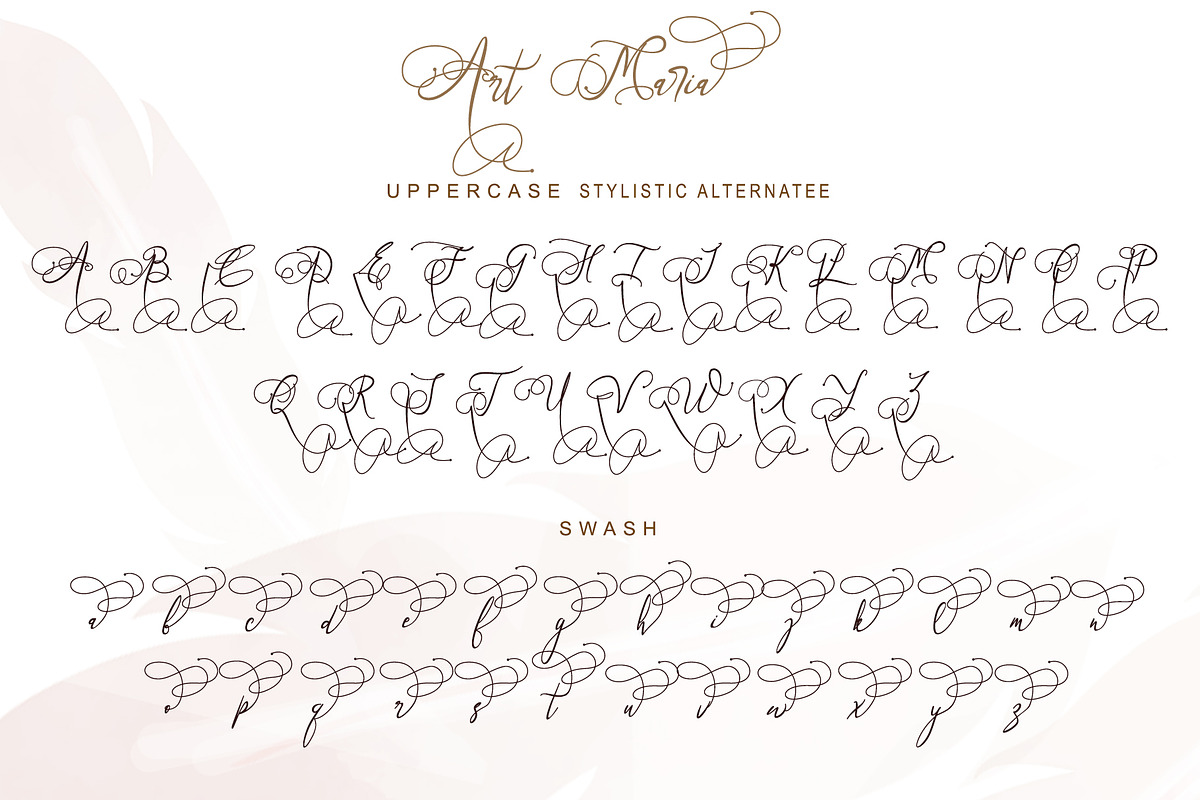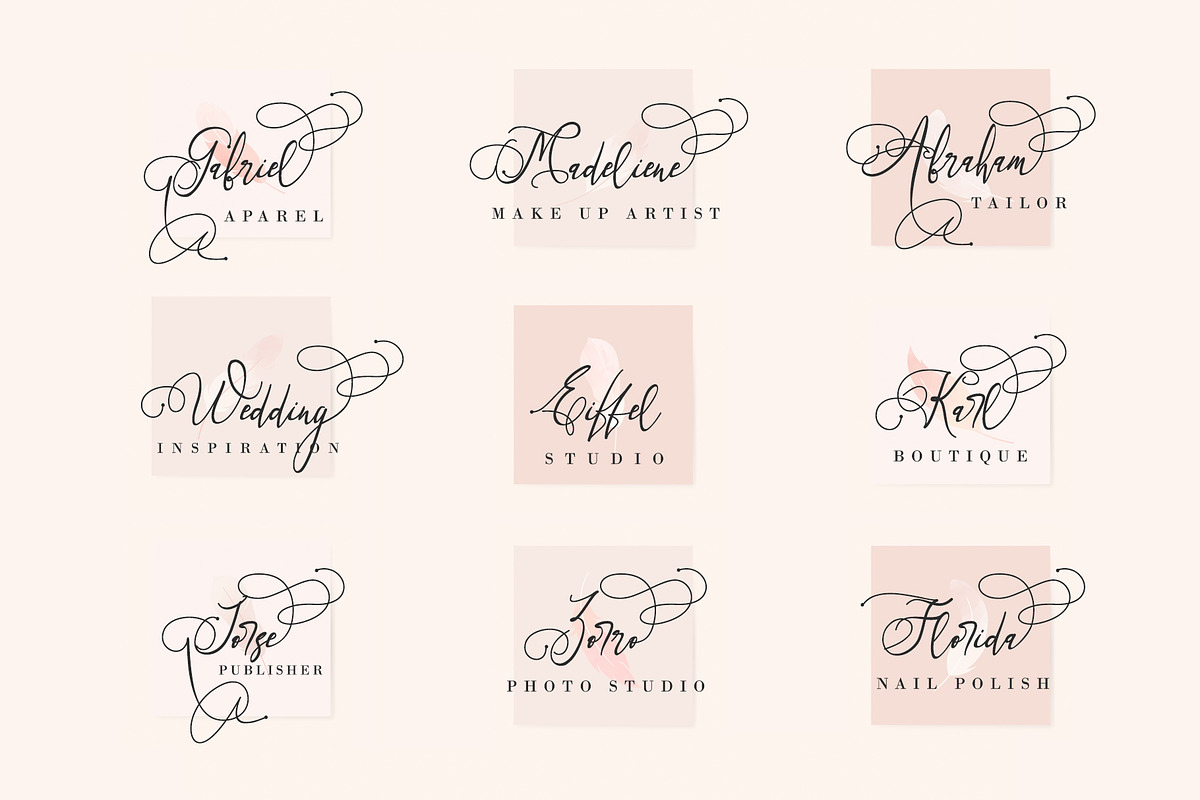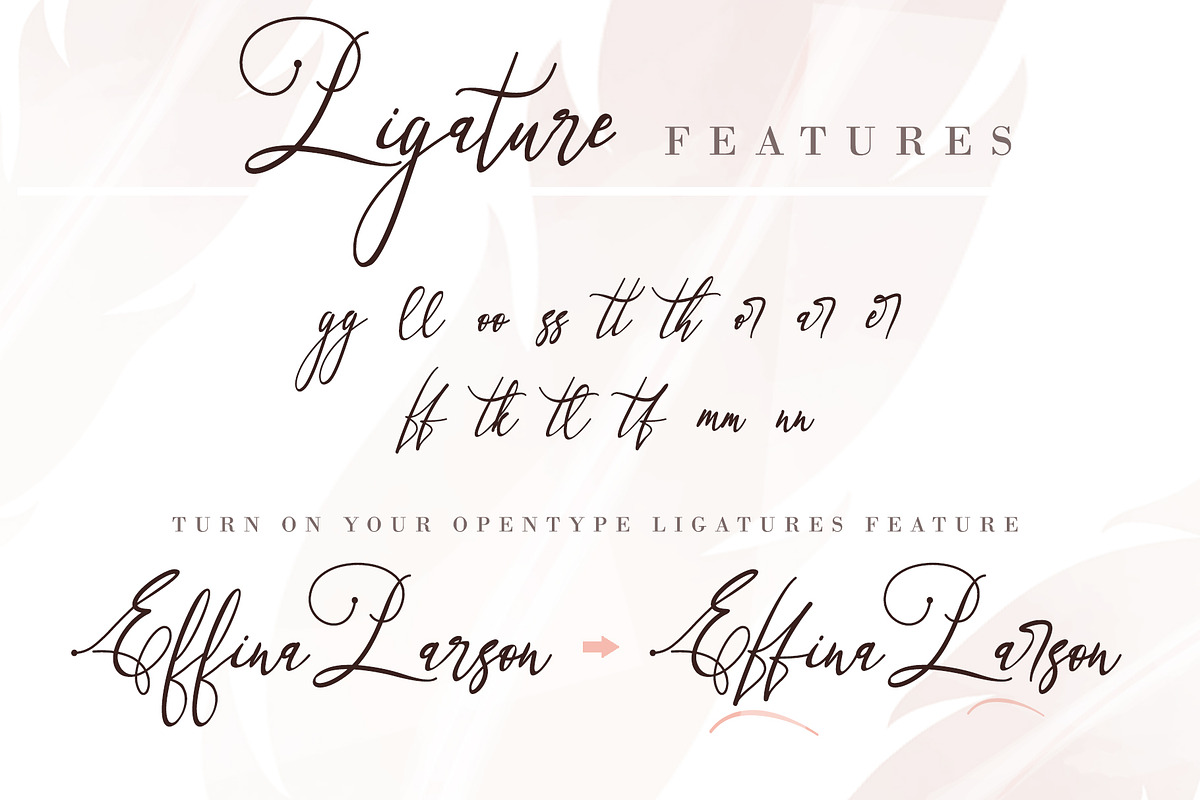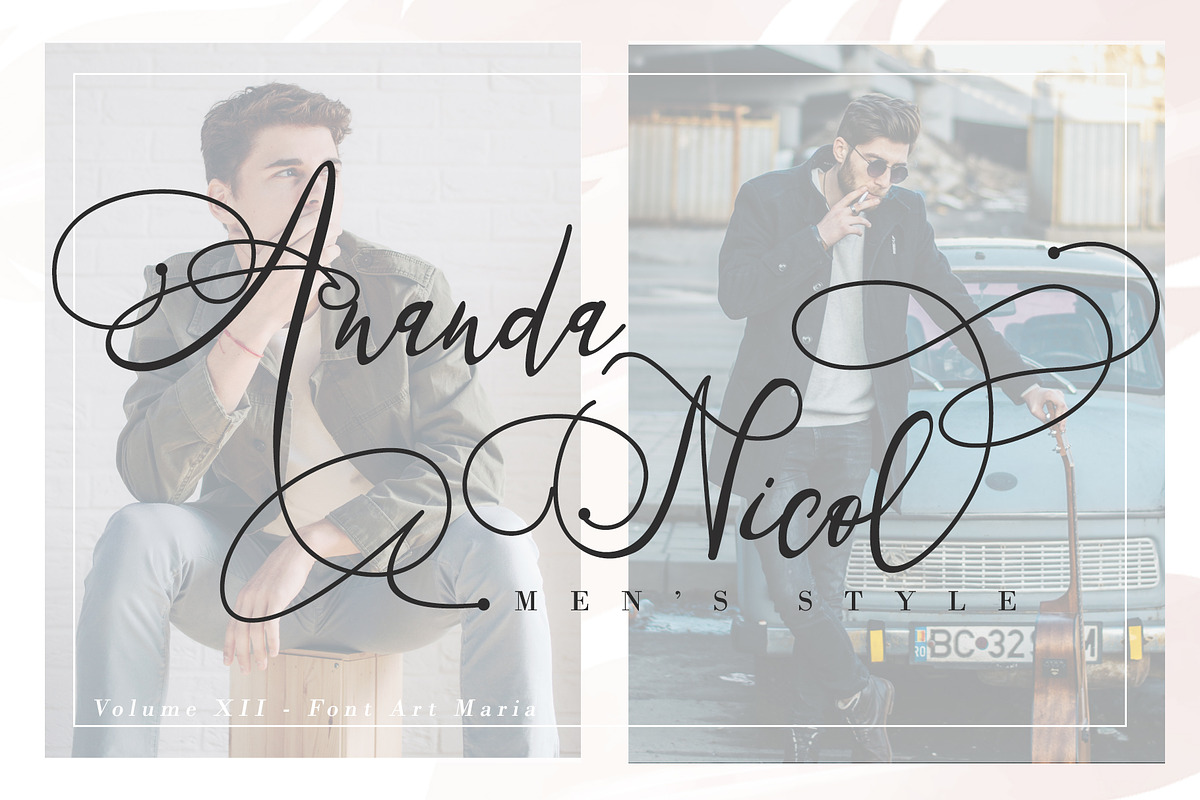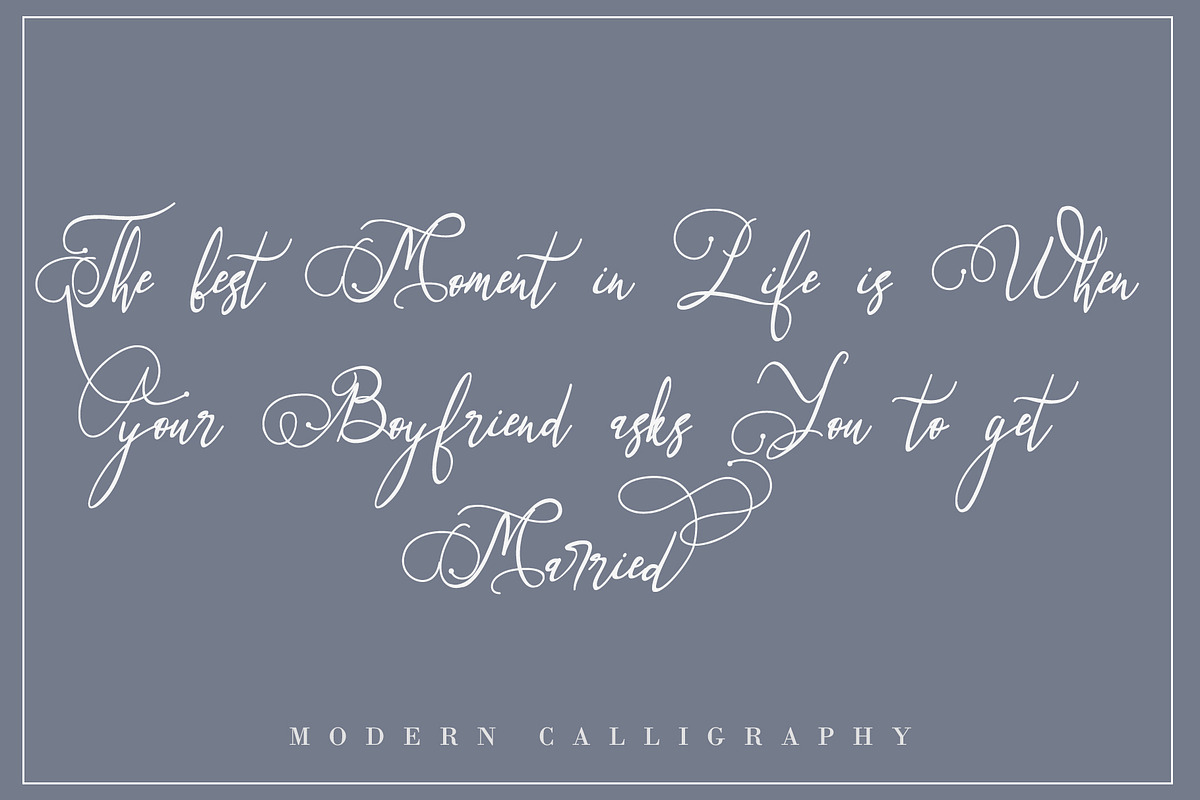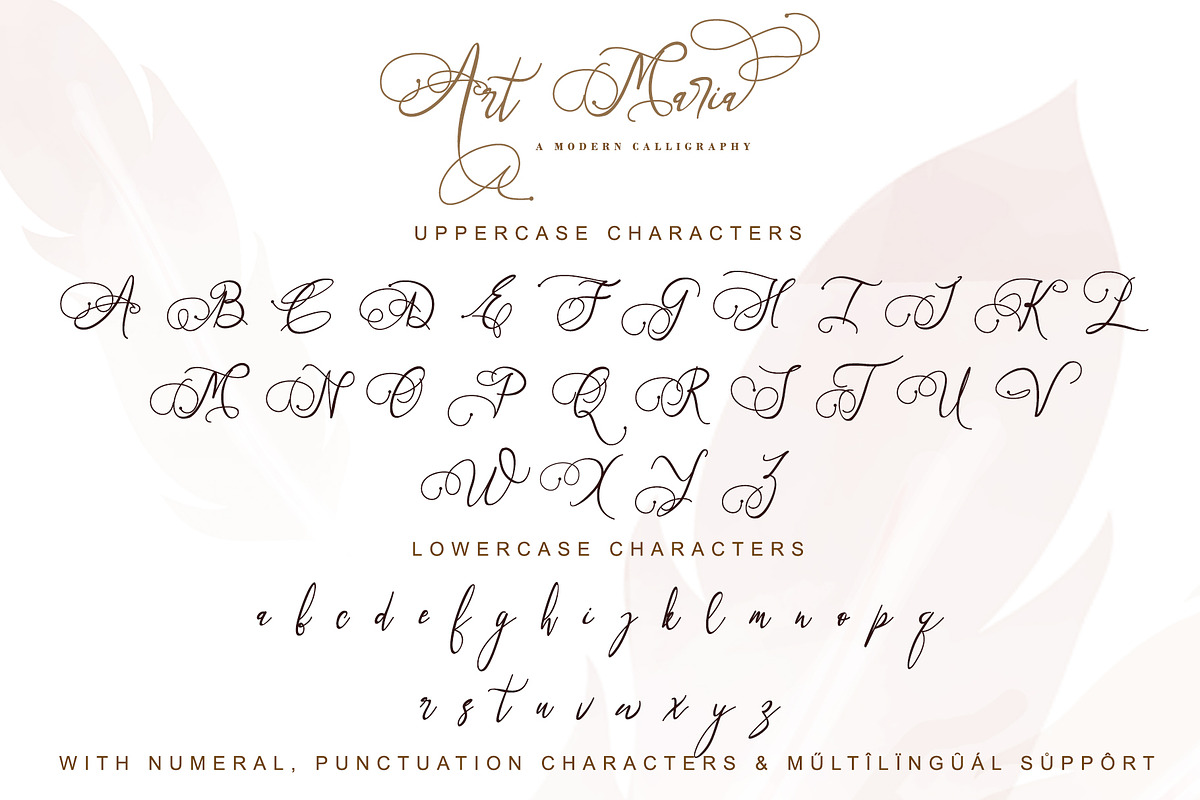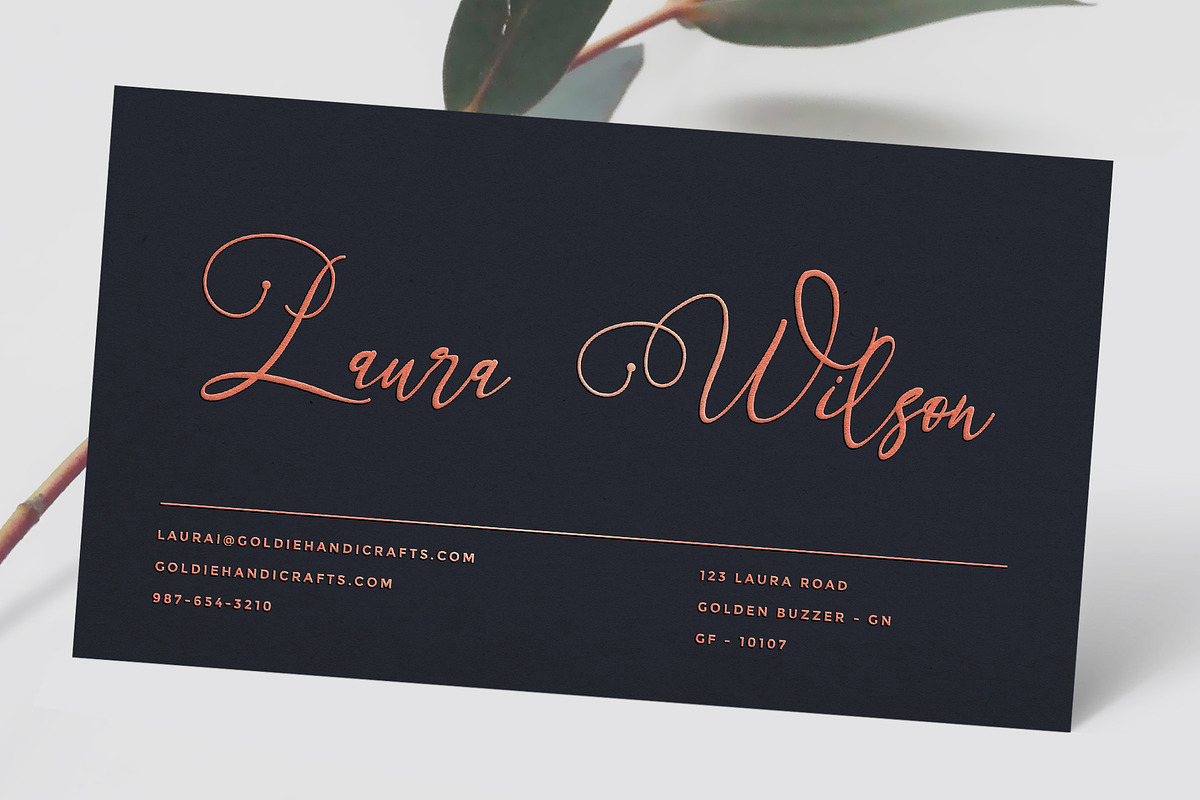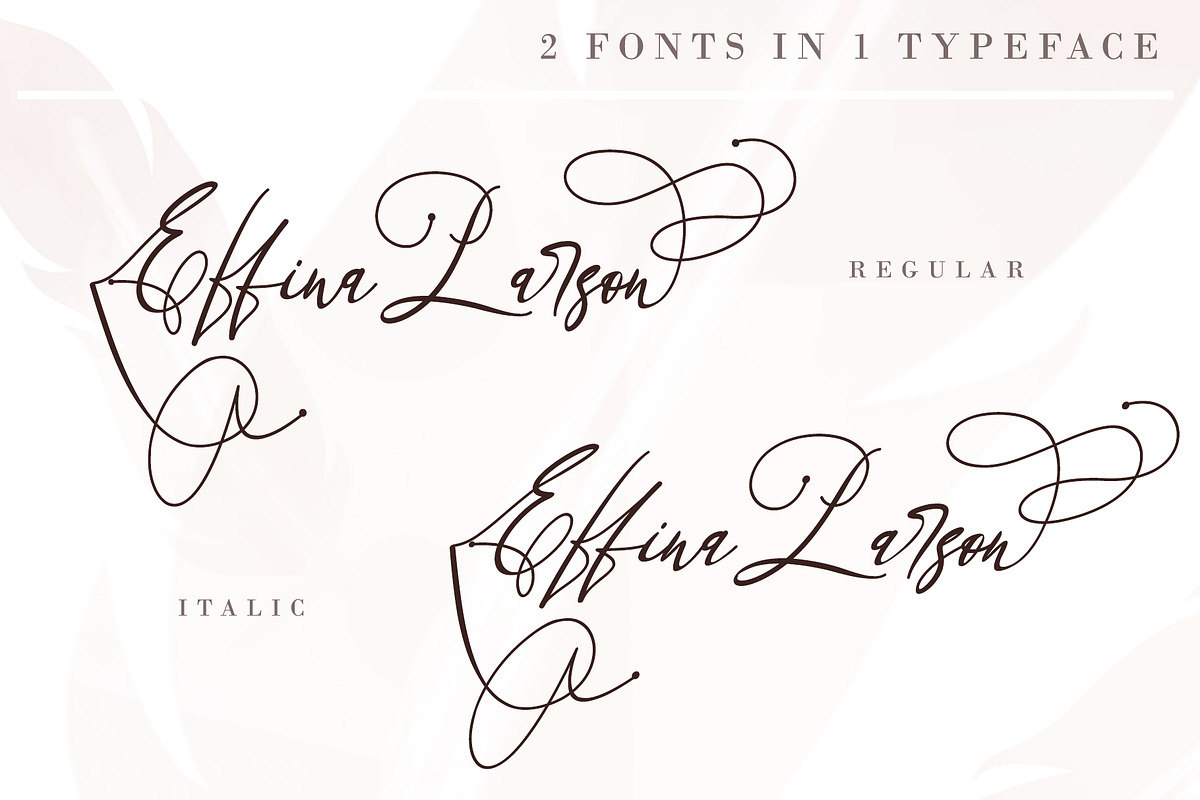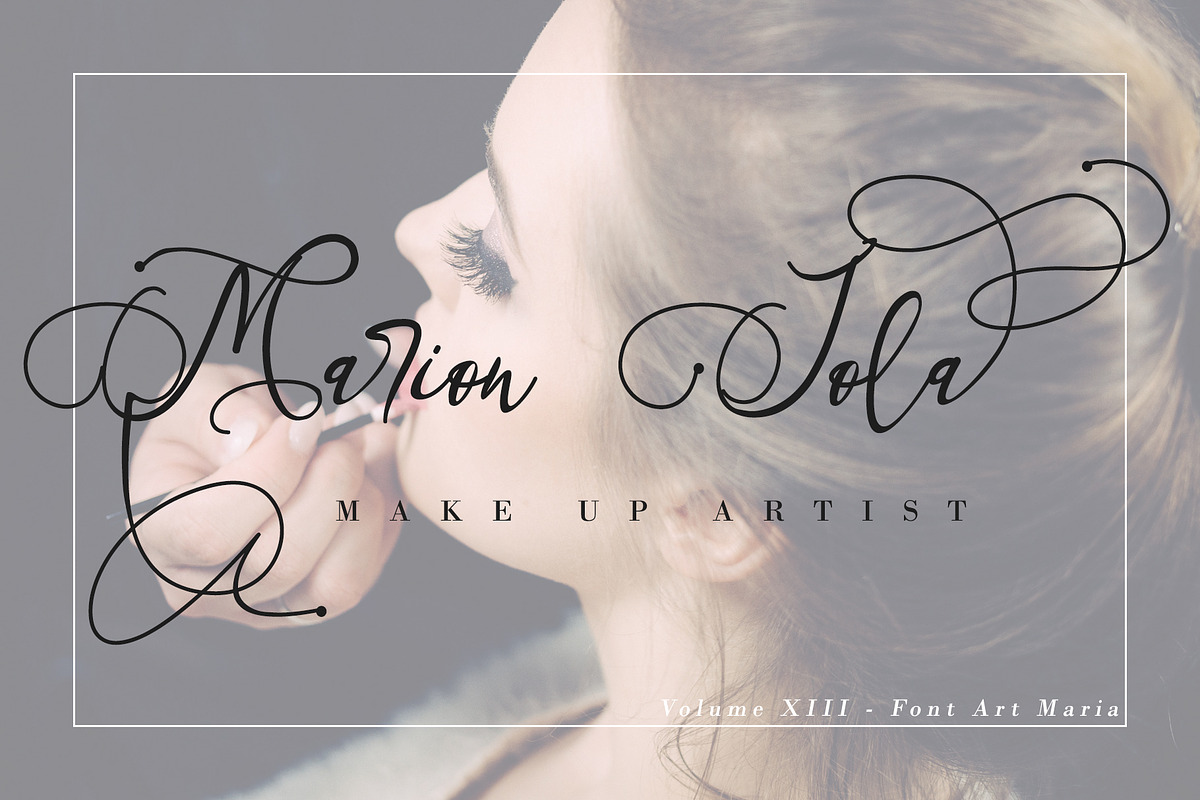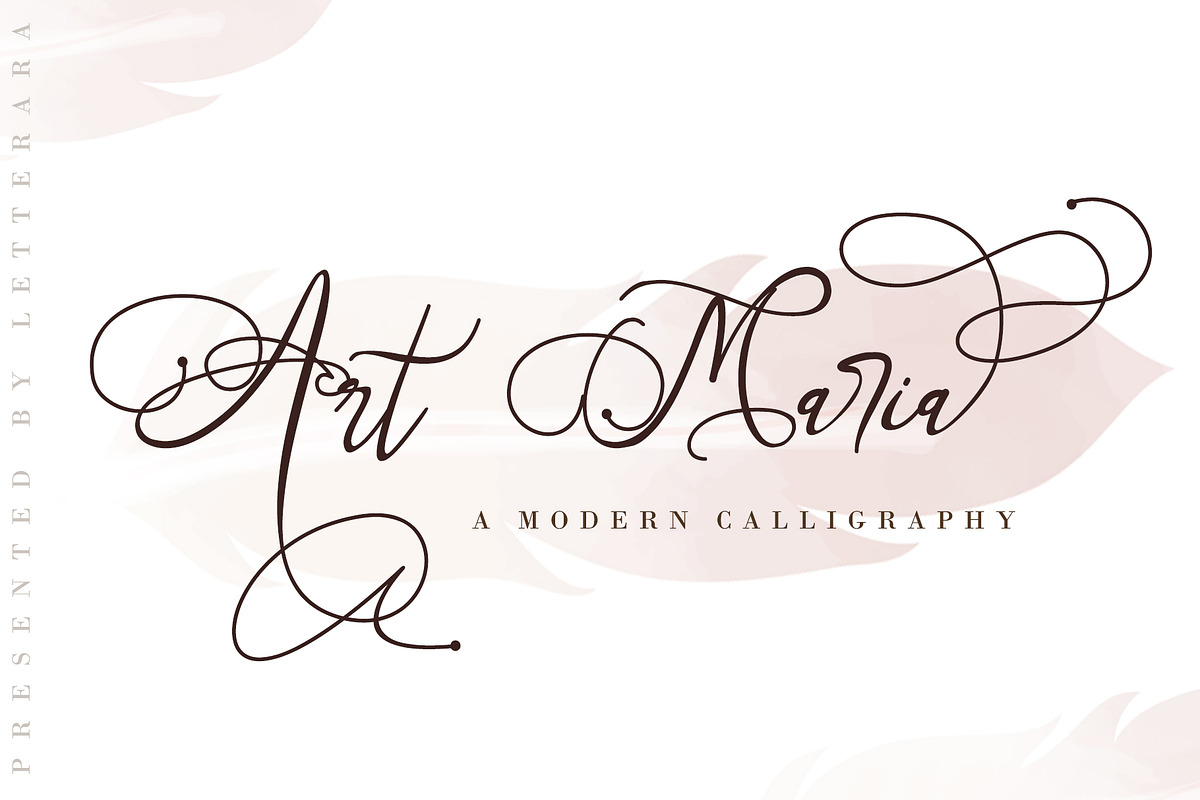
Art Maria
Art Maria is a playful and strikingly beautiful handwritten font with a bold twist in the style of Modern Calligraphy. Art Maria has full-featured with tons of alternate characters and OpenType features. It will add a sophisticated charm to any design project! Art Maria hand-letter is particularly well perfect for invitations, branding, editorial design, elegant logos, upscale packaging, wedding stationery, posters, quotes, short text, branding, web, graphic design, and any other projects requiring a handwritten and luxurious touch.